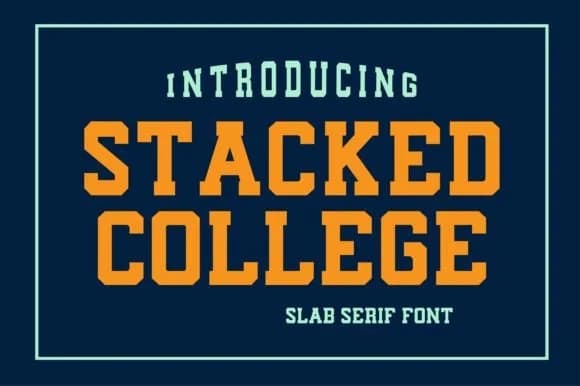
1 / 8About Sport Stacked Font
Picture a vintage college basketball poster, where bold, thick lettering dominates the entire composition. Sport Stacked by Riya Studio is a slab serif designed to capture that same assertive athletic energy and bring it into contemporary design work with ease. This font shines on athletic apparel branding, from custom team jerseys and varsity merchandise to vintage sports package labels, and performs beautifully on boutique athletic packaging where you need letterforms that command immediate attention from every angle.
The stacked capability adds real flexibility for compressed layouts and logo work, making it a natural choice for cover designs and athletic event signage where visual impact matters far more than subtlety. Built for all-caps settings, the font reads with commanding authority at display sizes, whether large or massive. Every application gains a confident, unwavering presence when you're working on team merchandise lettering, retro sports posters, or apparel branding that needs to stand out on crowded retail shelves. The weight carries through consistently across all-caps compositions, letting you build designs that feel intentional rather than arbitrary.
- Sturdy, Confident, Sport Stacked
Sport Stacked Font is a slab serif font that shines as a display or heading face. Pair it with a clean sans-serif or serif font for body text β the contrast creates a clear hierarchy while the two styles stay balanced and easy to read.
Sport Stacked Font
by Riya Studio